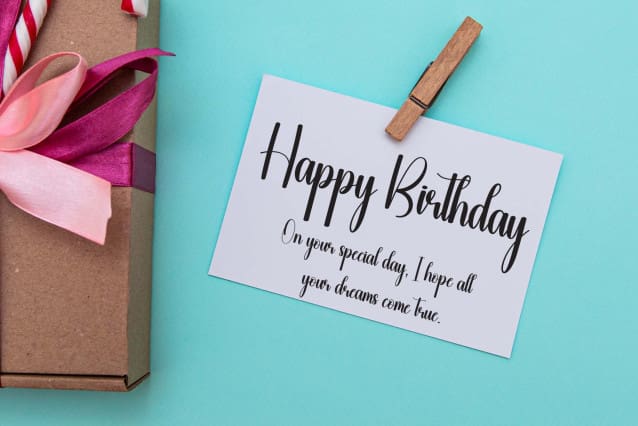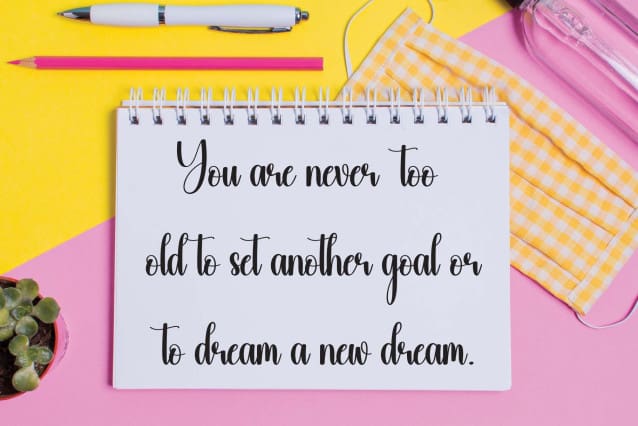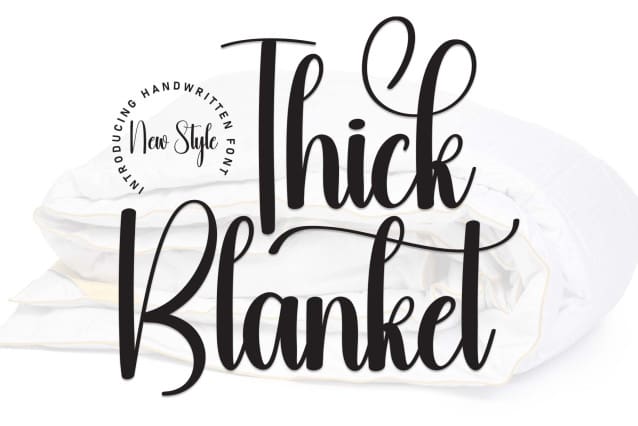
Thick Blanket Font
Thick Blanket Font is a flowing handwritten font, described by an elegant touch, perfect for your favorite projects. Fall in love with its incredibly distinct and timeless style and use it to create spectacular designs!